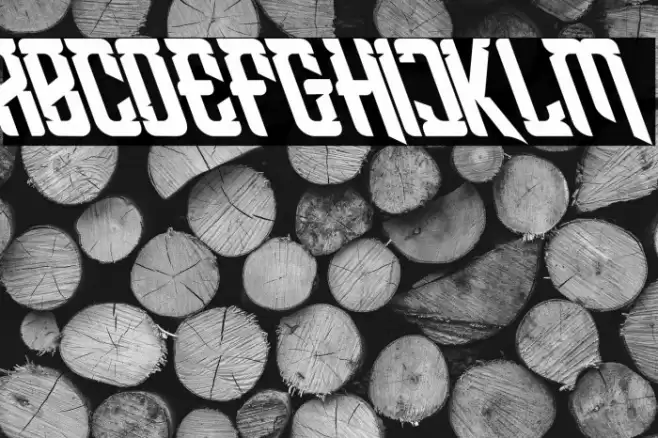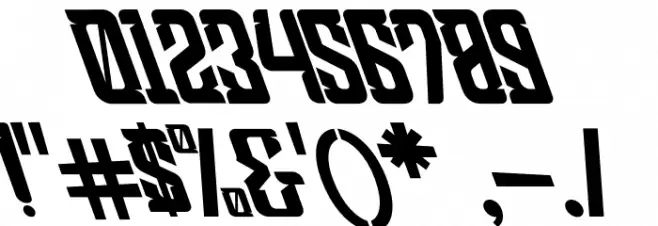
Shean Holmes Oblique Font
Shean Holmes Oblique Description
This font features a bold and dynamic style with a distinct oblique slant, giving it a sense of movement and energy. The characters are heavily stylized with sharp angles and thick strokes, creating a strong visual impact. The uppercase and lowercase letters maintain a consistent design, while the numerals and special characters complement the overall aesthetic. This font's unique appearance makes it suitable for attention-grabbing designs.
Bold, oblique font with sharp angles and thick strokes from Uncategorized fonts.
- Proposed Projects: Ideal for posters, logos, and branding materials that require a bold statement.